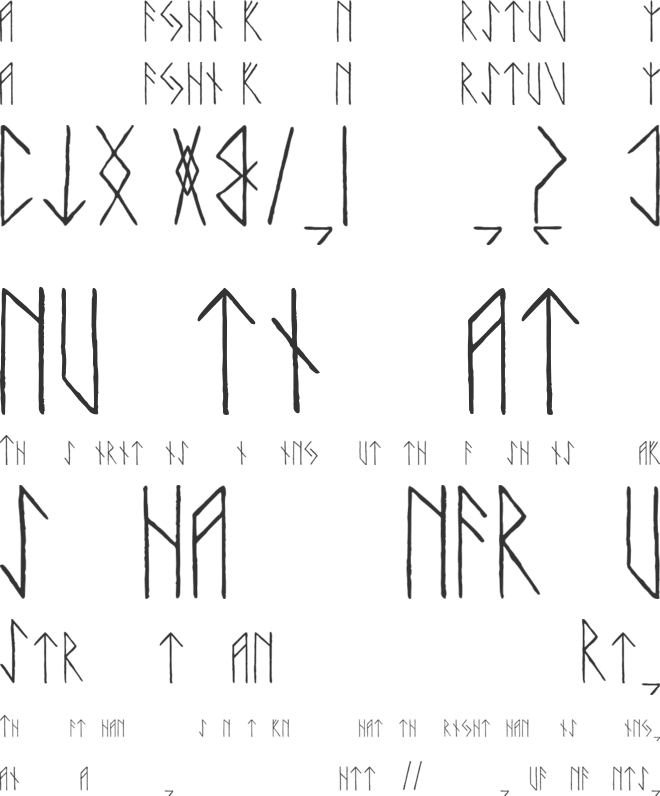
With all the new interest in Nordic Culture and the true power of the Vikings and their conquest of Europe I decided to revamp one of my earliest typefaces based on the Futhark Runes that were used to write various Germanic languages before the adoption of the Latin alphabet. I guess it can be said that it was the first ever typeface ever used here's my take on the specific letters that I have adapted where I thought it was required. Obviously you can see that not every Rune matches up the modern day Gylphs but I guess that's part of the fun of it?